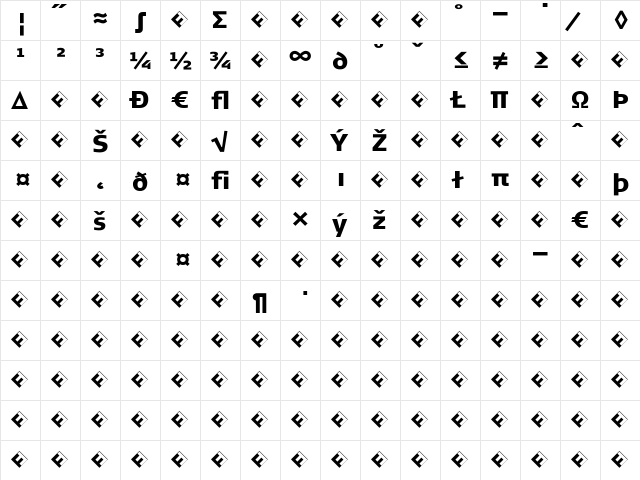
SignaNormal-BlackExpert Regular Font Preview
SignaNormal-BlackExpert Regular
SignaNormal-BlackExpert Regular Font Details
| Designer | Ole Soendergaard |
Design Context for SignaNormal-BlackExpert Typeface
SignaNormal-BlackExpert takes a measured approach to typography — its balanced proportions and neutral character make it a reliable workhorse for both digital and print work.